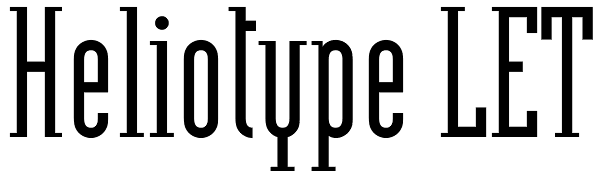
Heliotype
British artist Lee McAuley was inspired by Soviet constructivist designs when he created this powerful typeface. 'Helio' means combined; Heliotype adds serifs to a sans serif face to link each character to the next. Its strong, aggressive geometric...